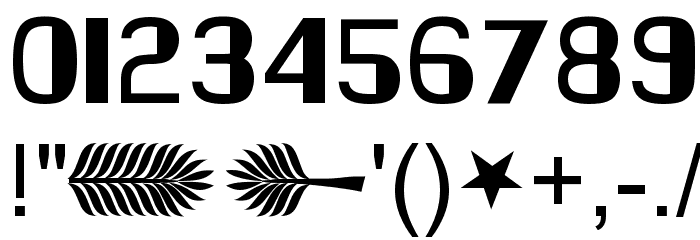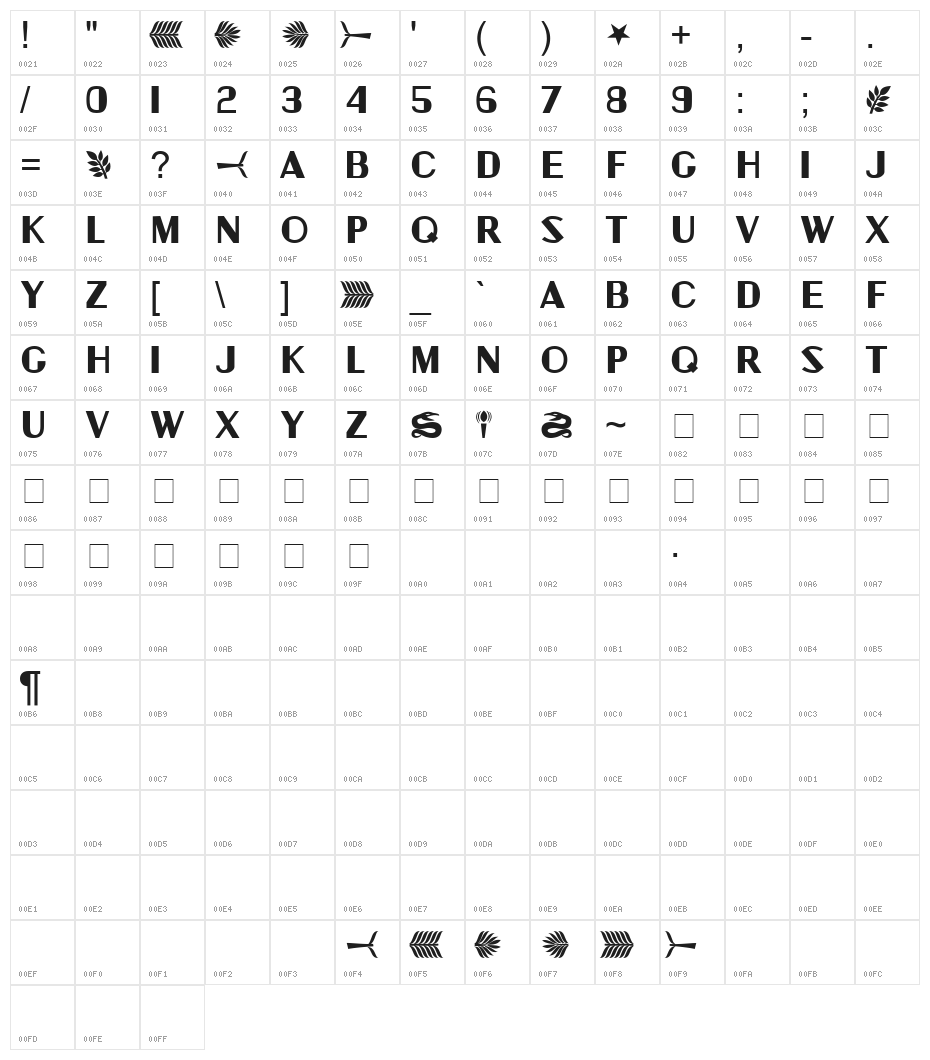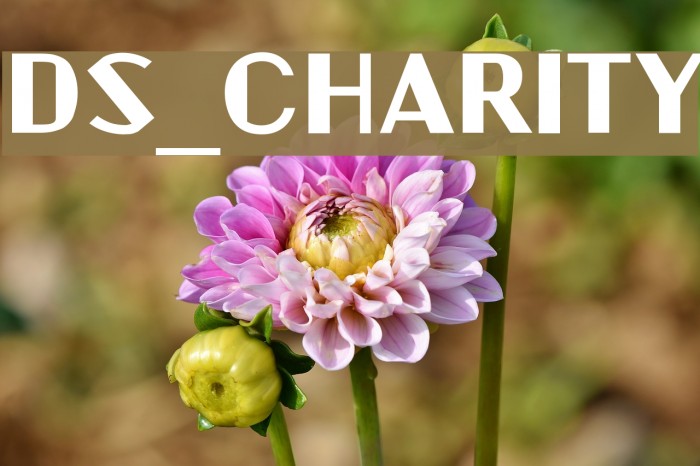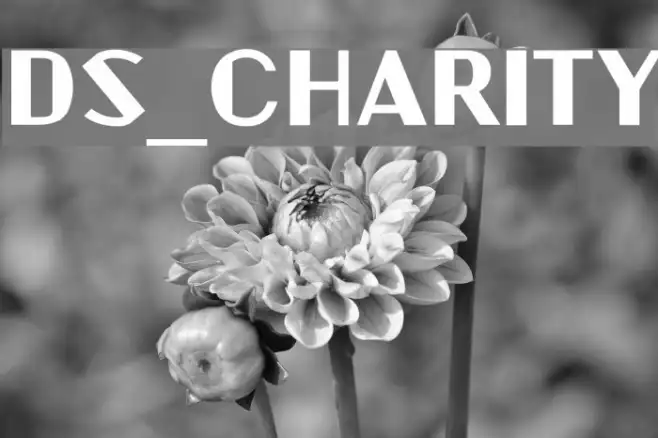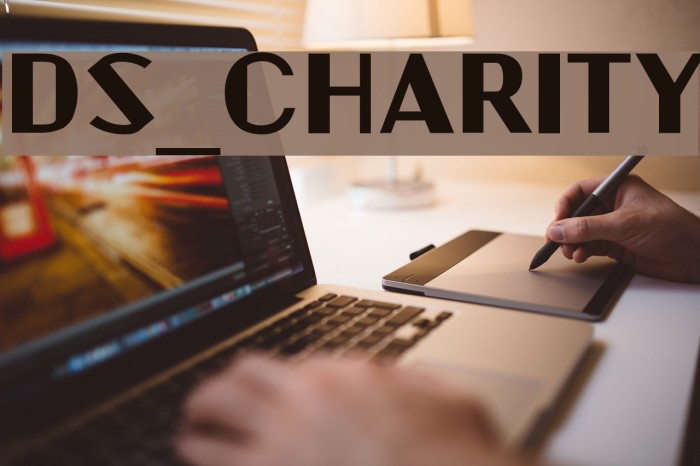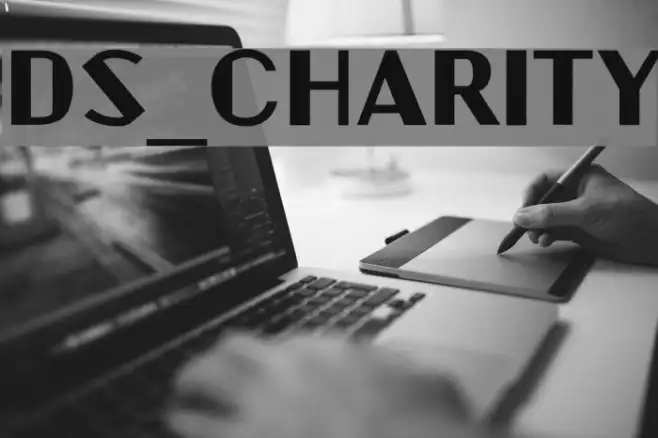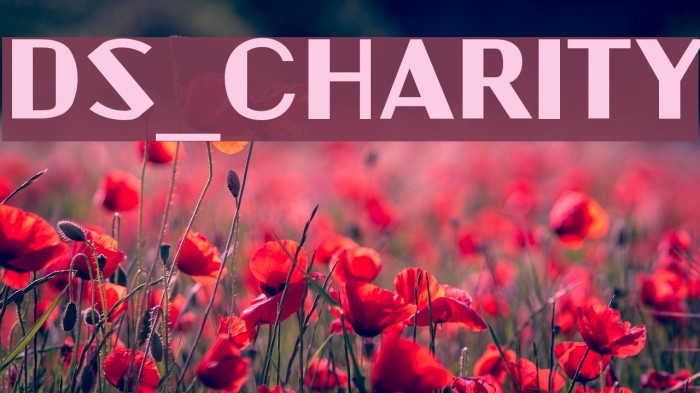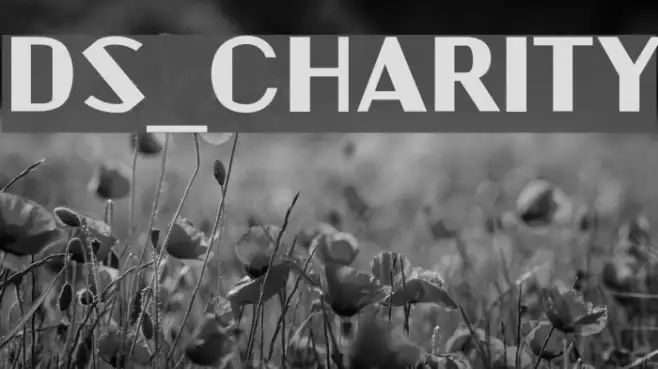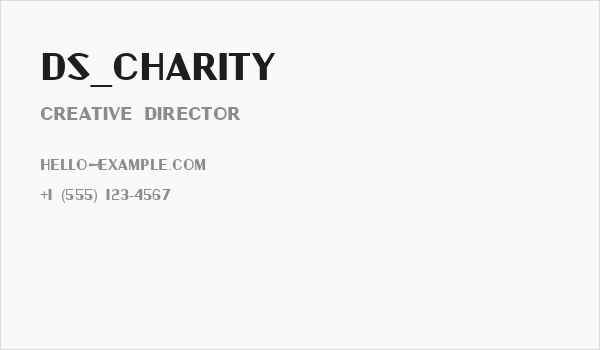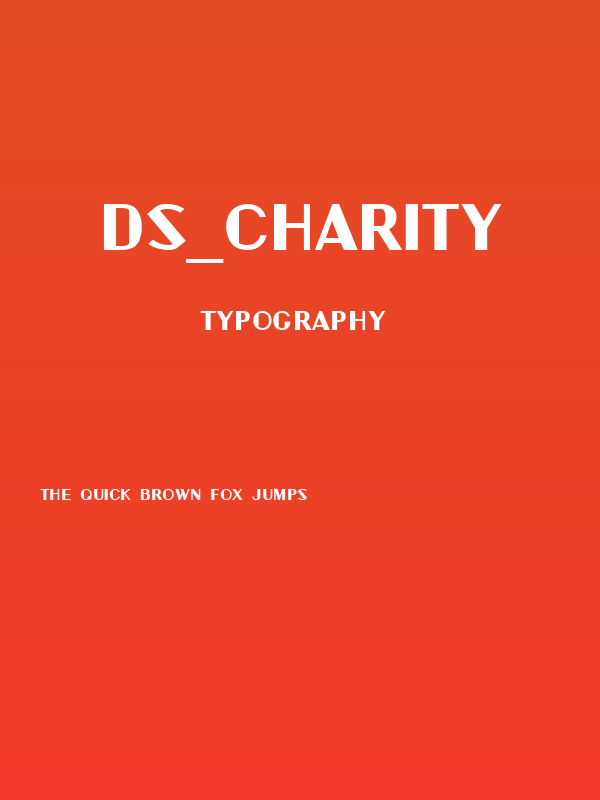
DS_Charity Font
DS_Charity Description
This font features bold, geometric letterforms with a modern and assertive appearance. The uppercase letters are characterized by strong, clean lines and a consistent stroke width, giving them a robust and impactful presence. The lowercase letters maintain the same boldness, ensuring uniformity across the typeface. The numerals are equally bold, with a slightly condensed appearance that complements the overall style. Special characters, including punctuation marks and symbols, are designed to match the font's bold and modern aesthetic. The font's design is suitable for making a strong visual statement, with its high contrast and clear legibility.
| Proposed Projects | Ideal for branding, headlines, posters, and any design project requiring a strong visual impact. |